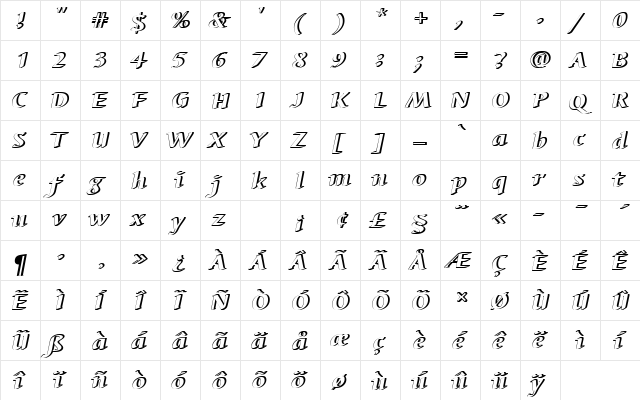
BarbedorTHeaItaRe1 Regular
Design Context for BarbedorTHeaItaRe1 Typeface
BarbedorTHeaItaRe1 is a composed and adaptable typeface that performs quietly and consistently across a wide range of design contexts.